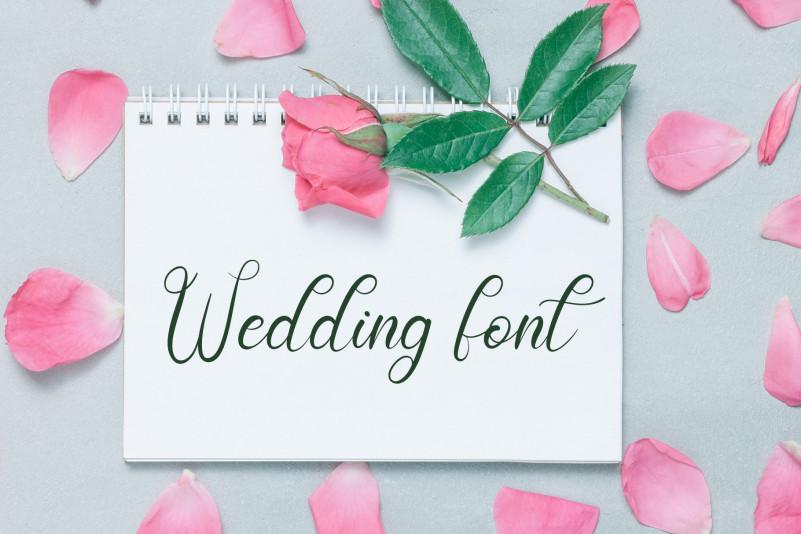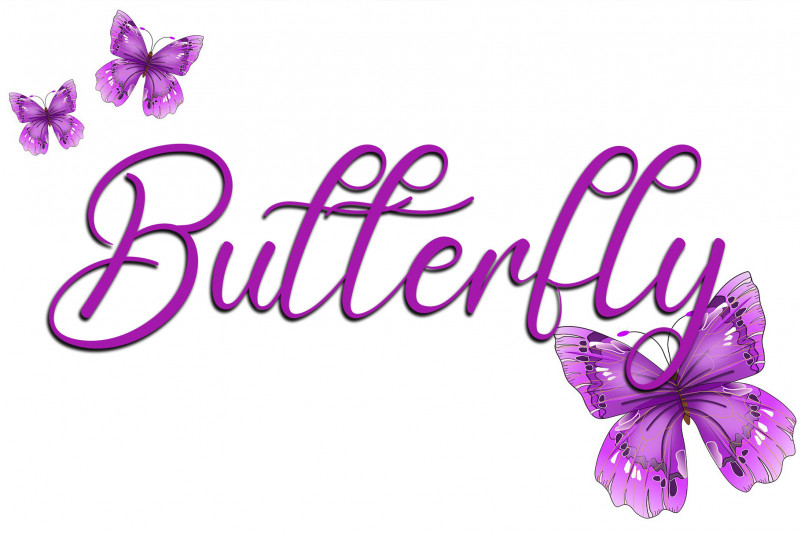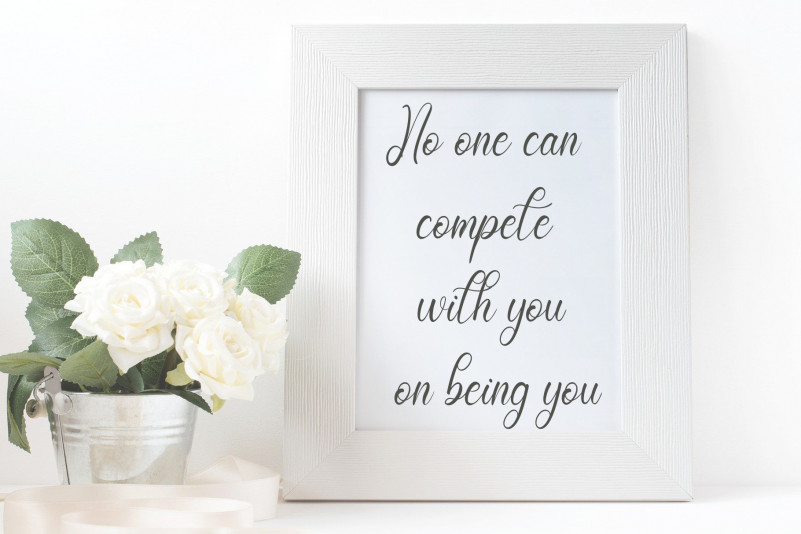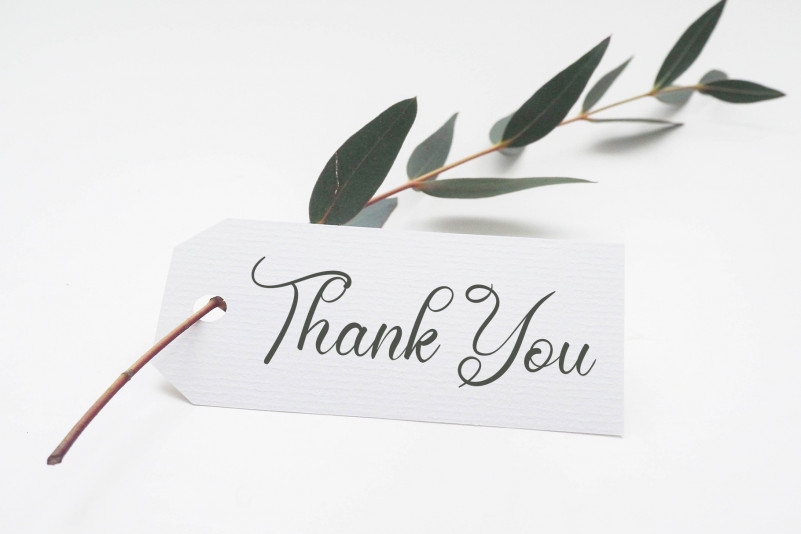
Hello Daddy Font
Hello Daddy Script Font
This is an elegant script font with a contemporary atmosphere and impeccable form, inspired by timeless classic calligraphy. Not too thin and not too thick, balanced and varied, this font was designed to enhance the beauty of your projects.